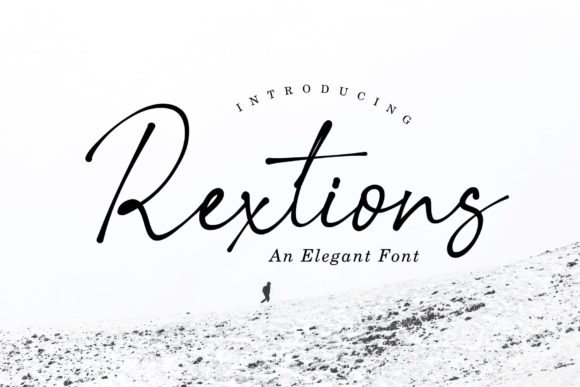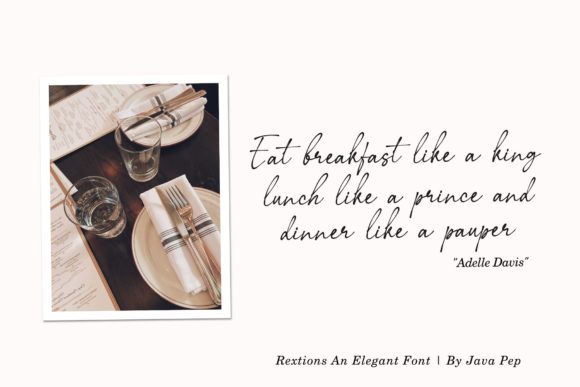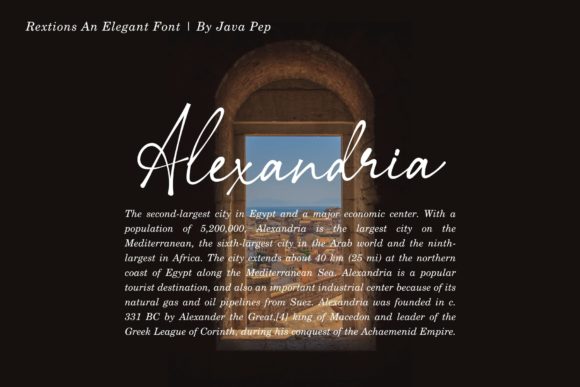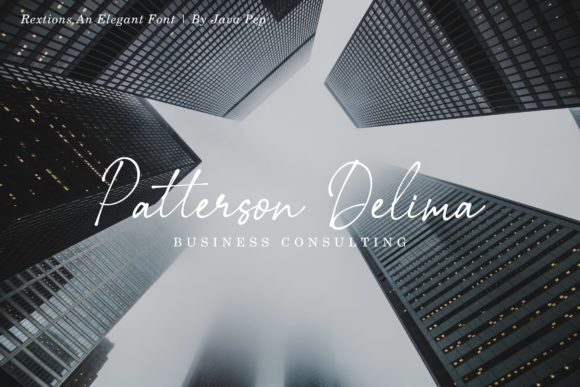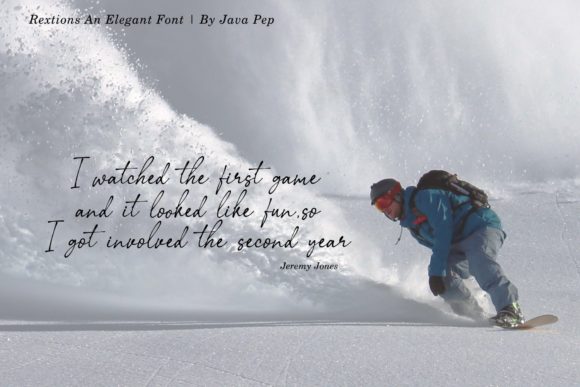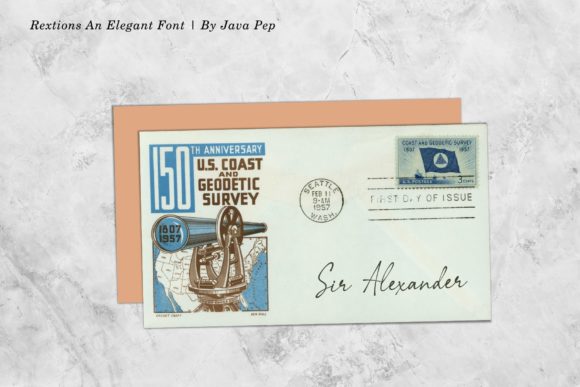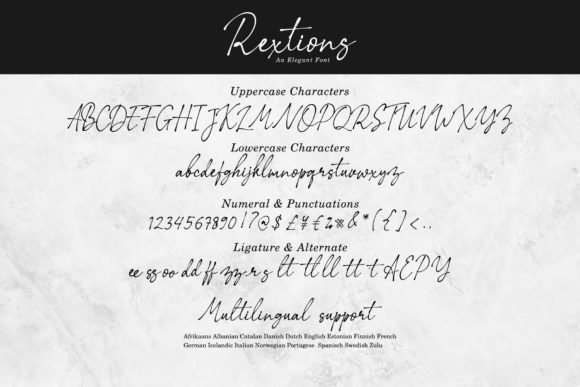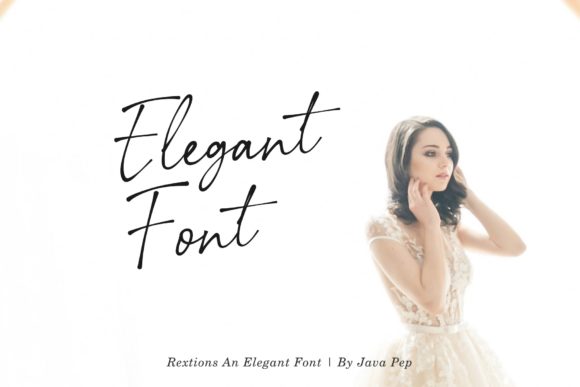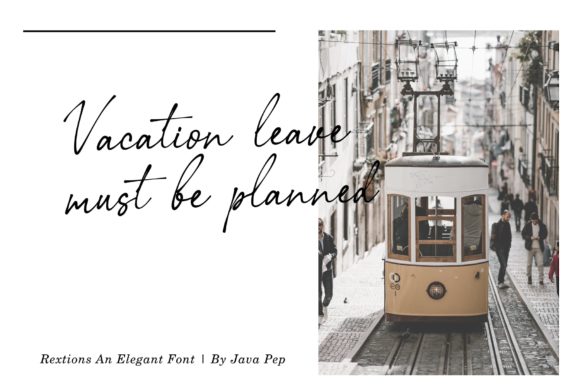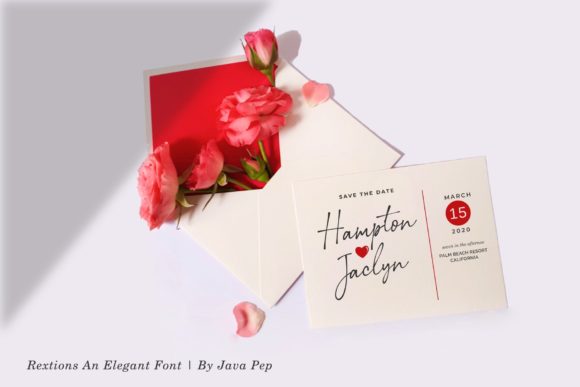
Rextions Font
About Rextions Font
Rextions feels elegant, yet authentic. This gorgeous script provides a wide range of authentic glyphs that will effortlessly make any design project stand out.